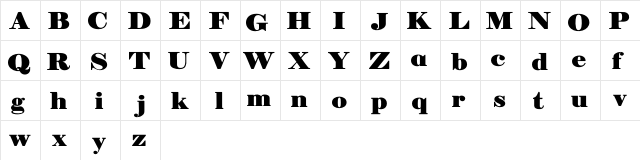
Manuell Regular
Design Context for Manuell Typeface
Manuell offers clean, dependable letterforms without strong stylistic allegiance, making it a practical choice for designers who need flexibility.
Pro Tip: Use Manuell in both headline and body roles to test its range before committing to a single application.